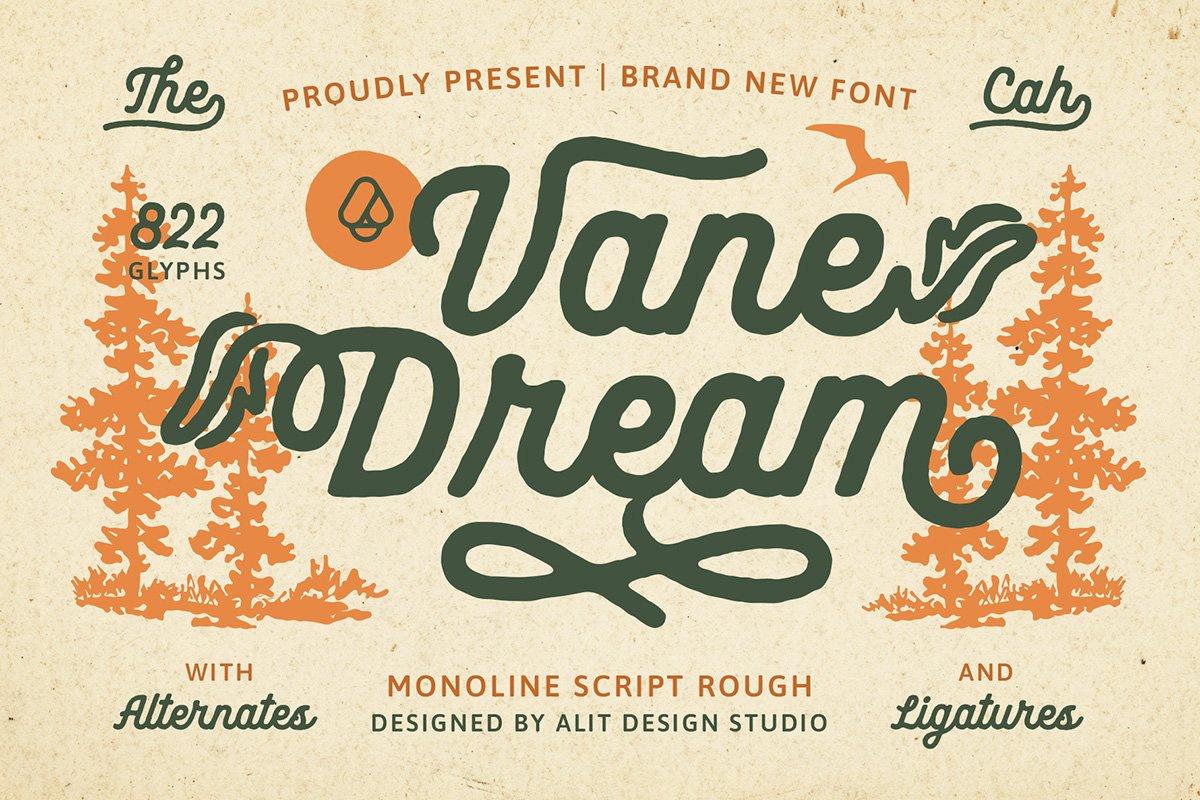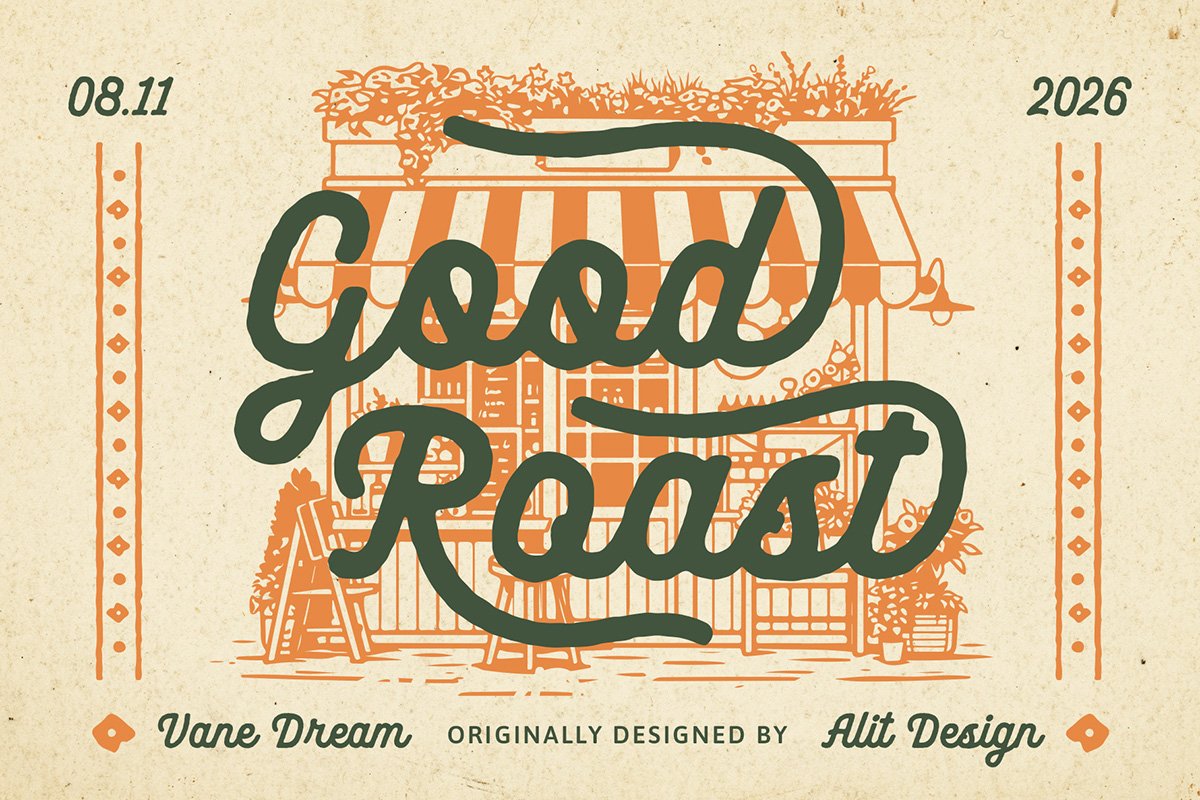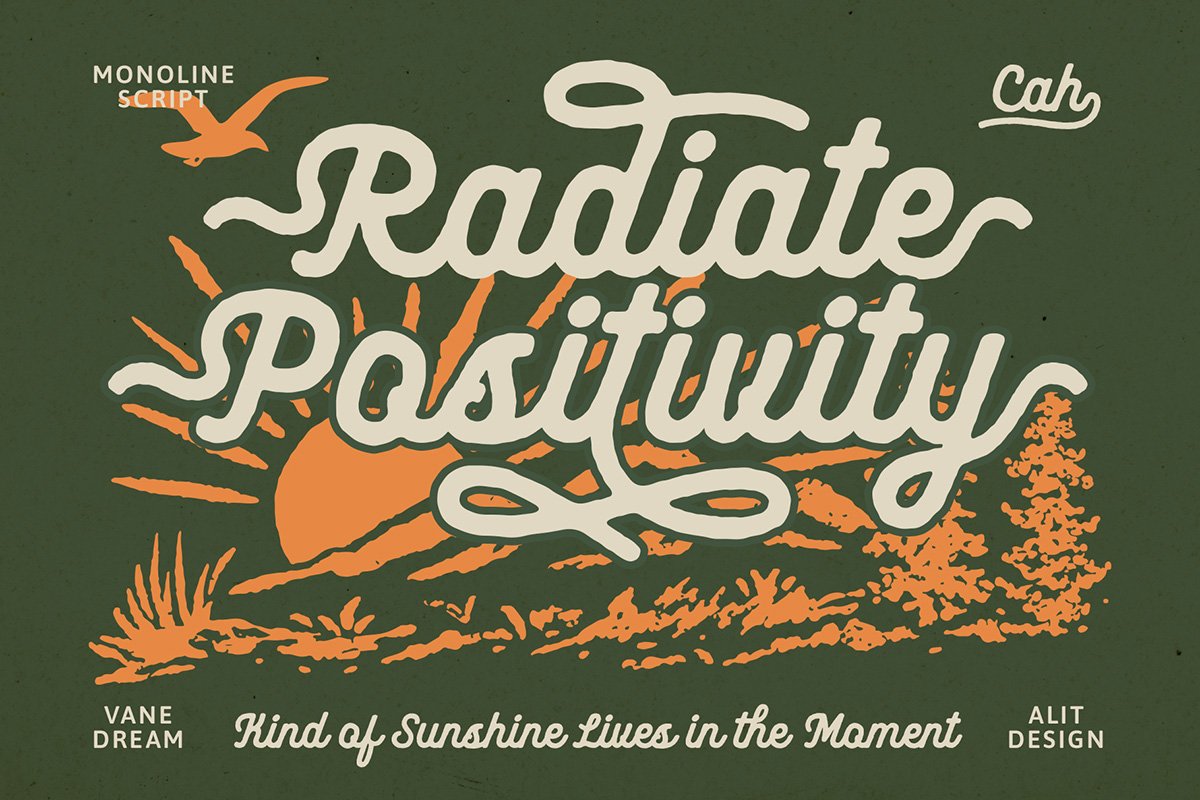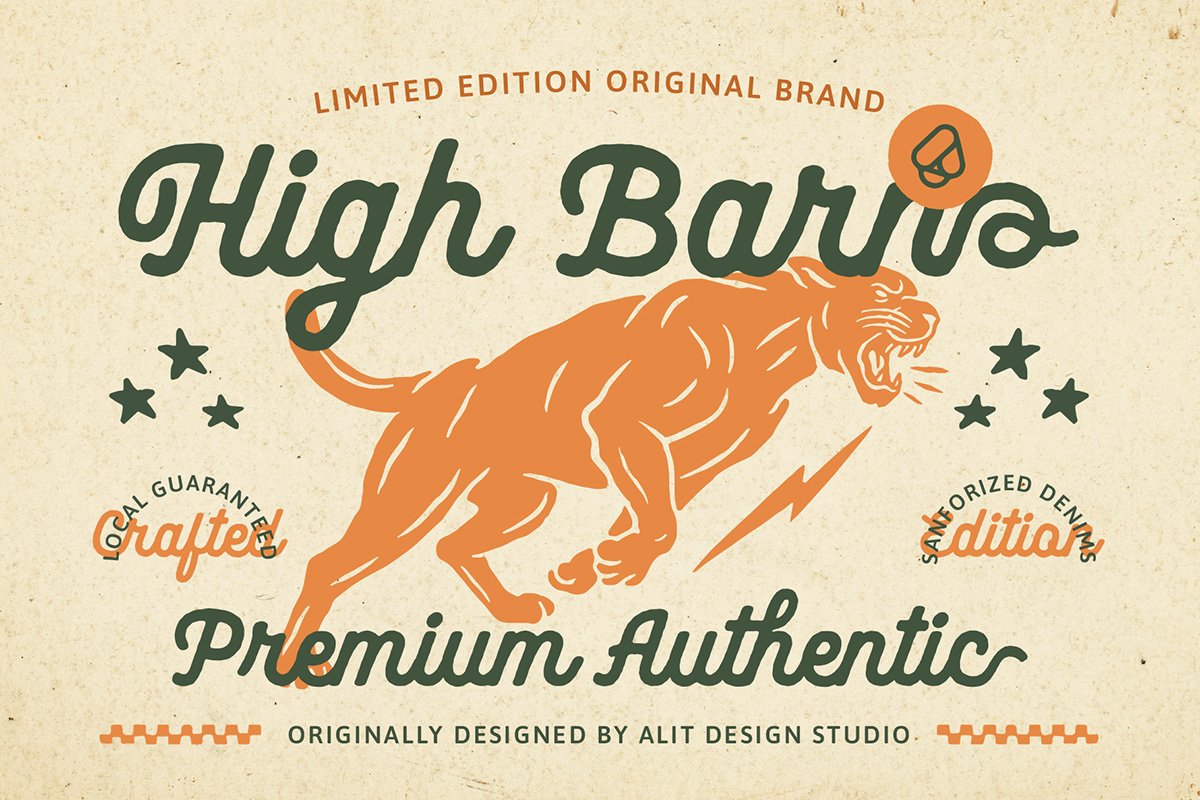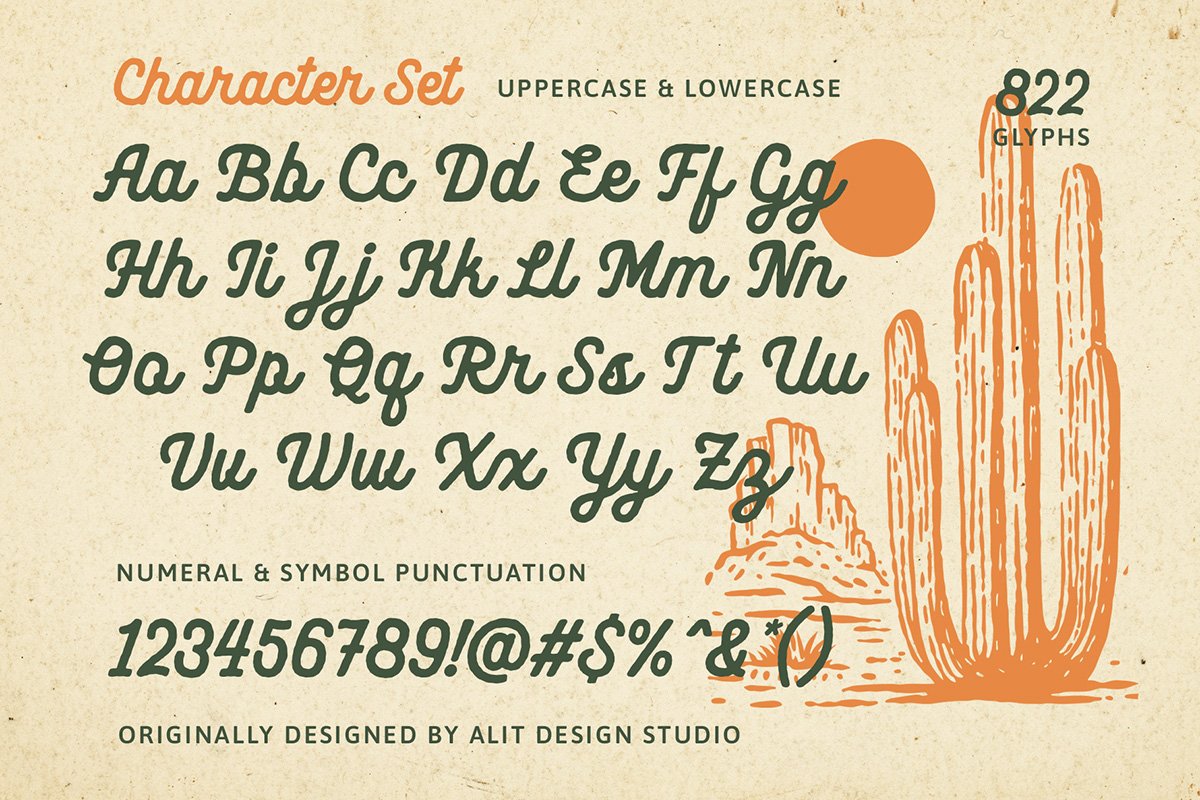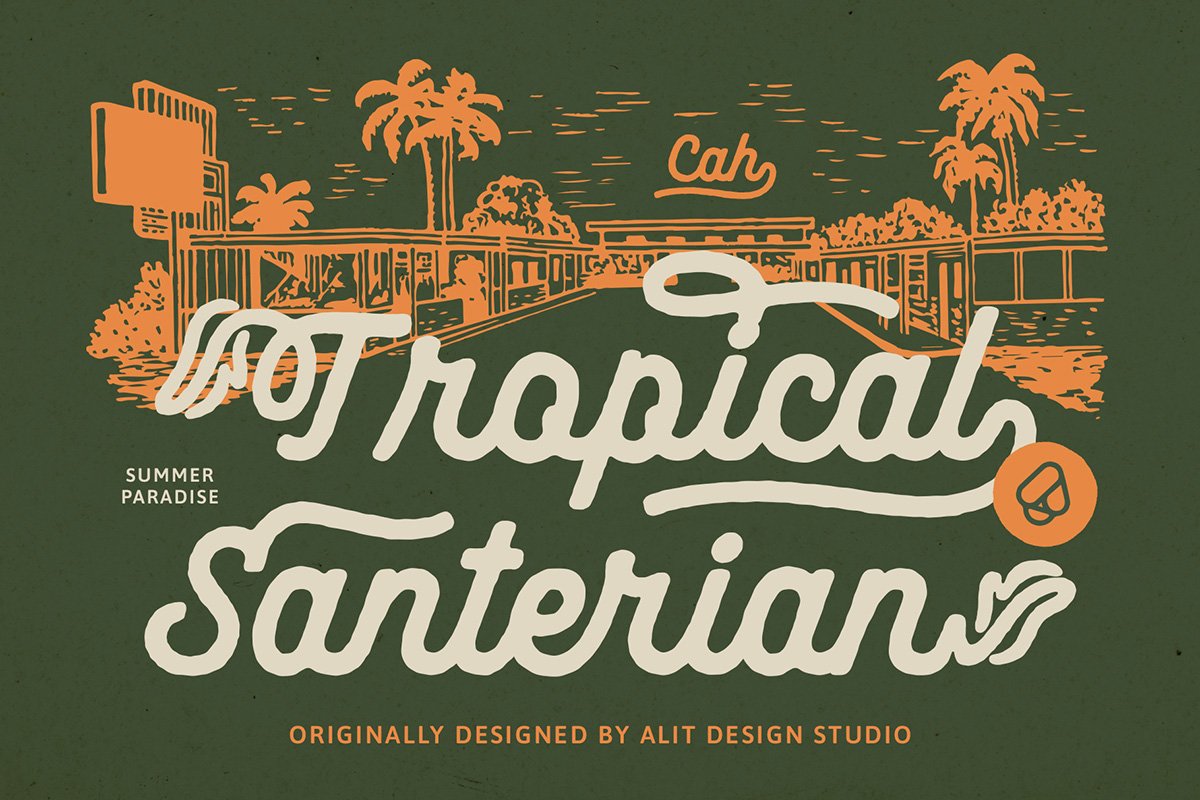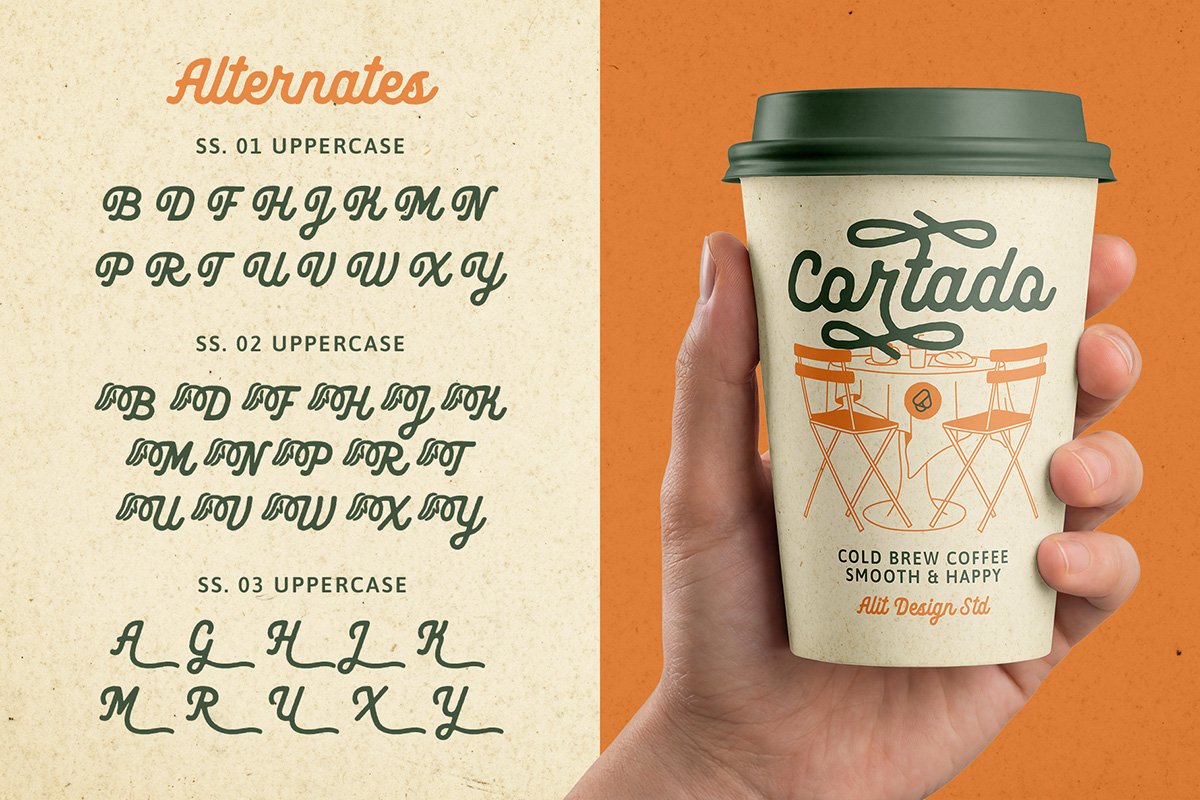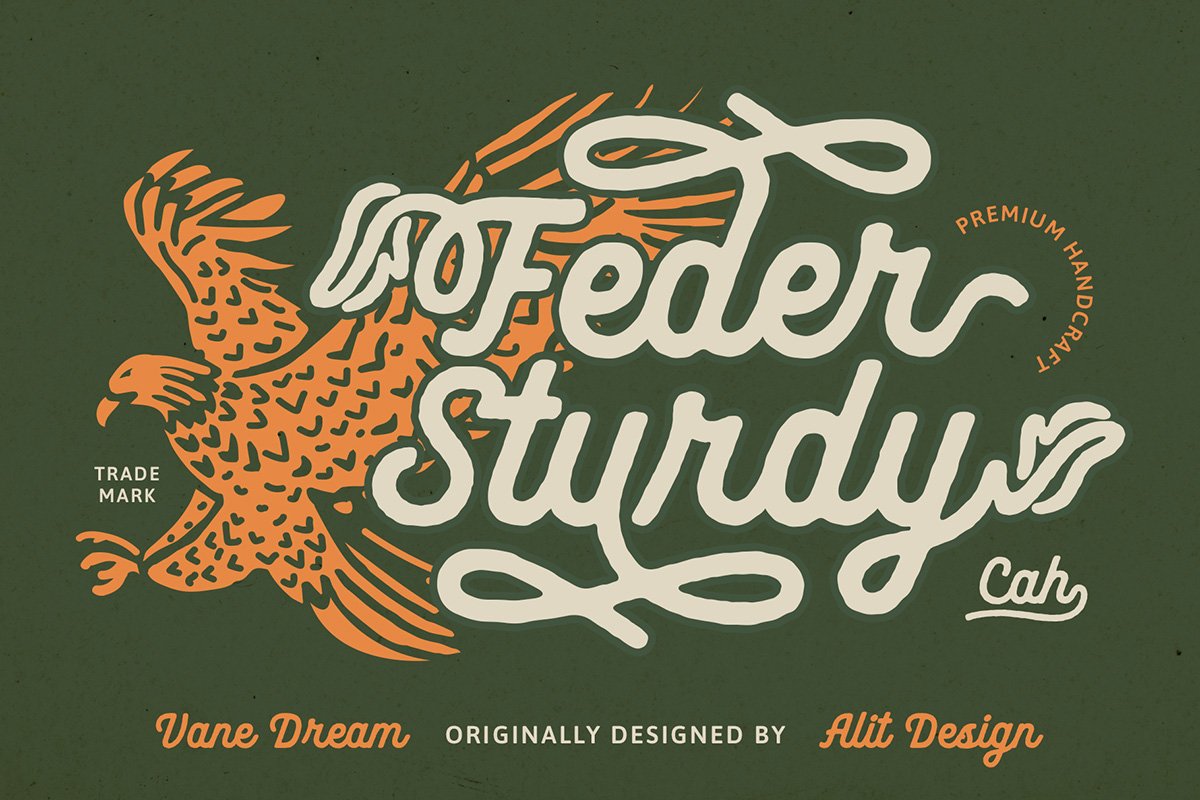
Vane Dream Typeface is a premium rough monoline script crafted for designers who crave that authentic, handcrafted vintage aesthetic. Proudly designed by Alit Design Studio, Vane Dream perfectly captures the spirit of the great outdoors, classic motor rides, and artisanal craftsmanship.